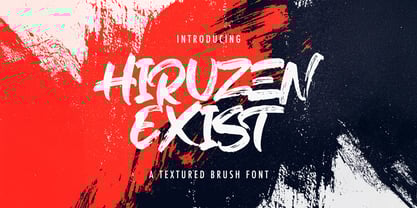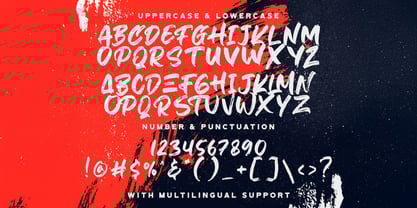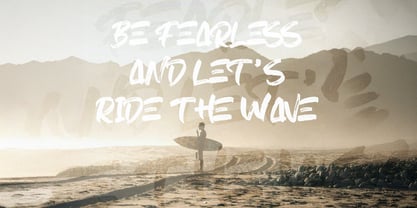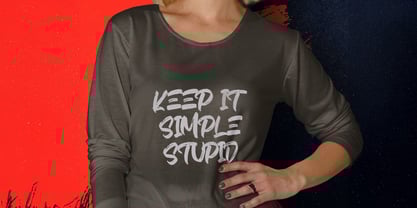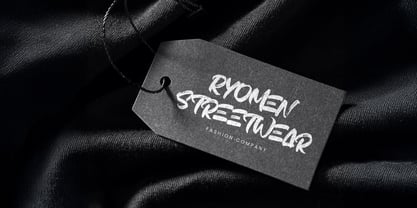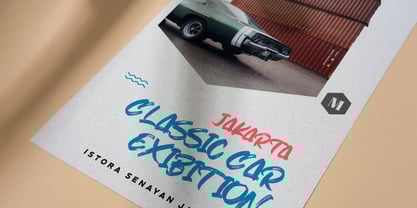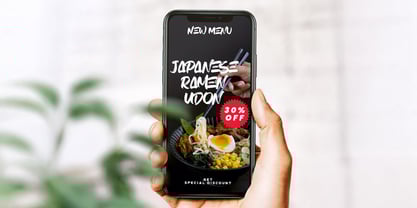
Hiruzen Exist
by Stringlabs Creative Studio
The Hiruzen Exist Font Family was designed by Virgiawan Listanto and published by Stringlabs Creative Studio. Hiruzen Exist contains 1 styles. More about this family
Hiruzen Exists is a bold and energetic typeface with a hand-painted, brush texture. Perfect for posters, streetwear designs, album covers, branding, and social media graphics, it brings a raw, edgy vibe to any project. With its natural brush strokes and gritty texture, Hiruzen Exists delivers an authentic, handcrafted feel. Includes uppercase, lowercase, numbers, punctuation, and multilingual support.
Designers: Virgiawan Listanto
Current Foundry: Stringlabs Creative Studio
Hiruzen Exist